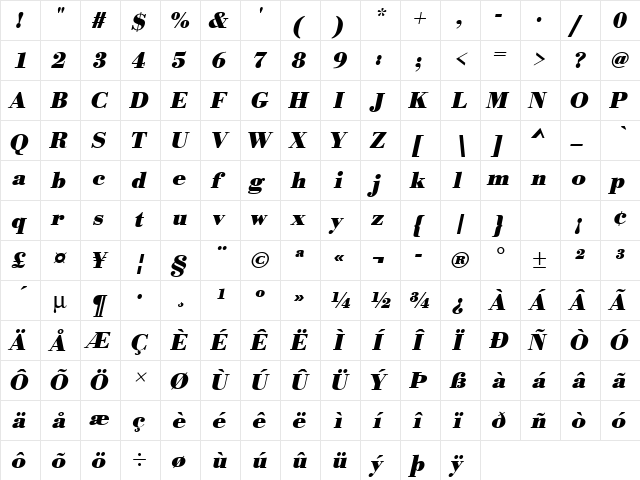
URWBodoniT Bold Oblique Font Preview
URWBodoniT Bold Oblique
Design Context for URWBodoniT Typeface
URWBodoniT takes a measured approach to typography — its balanced proportions and neutral character make it a reliable workhorse for both digital and print work. Its italic angle brings a sense of urgency and motion to the letterforms. The heavy weight commands attention and anchors typographic hierarchies.
Pro Tip: Use URWBodoniT for emphasis, pull quotes, and subheadings where its slanted energy can add rhythm to the layout.